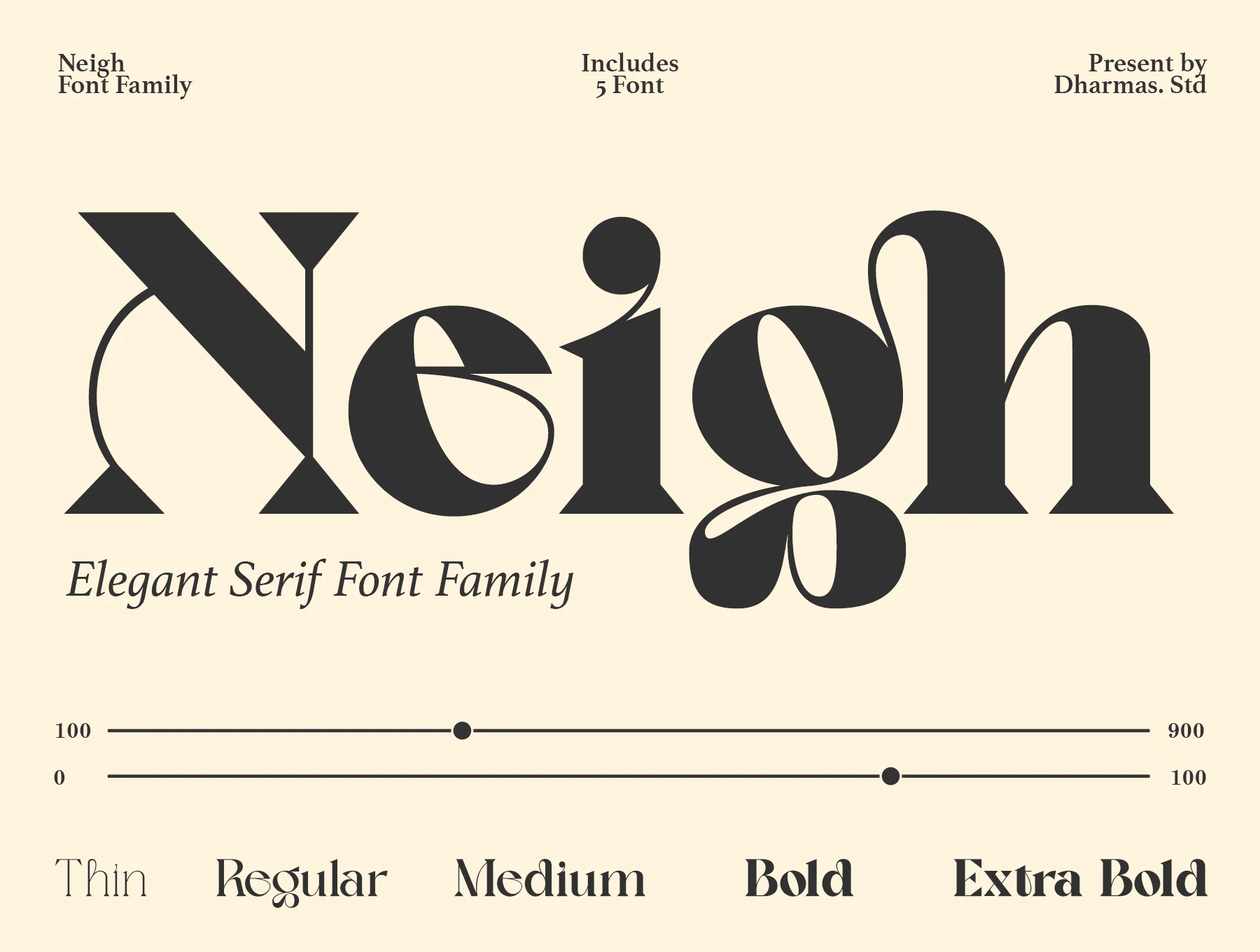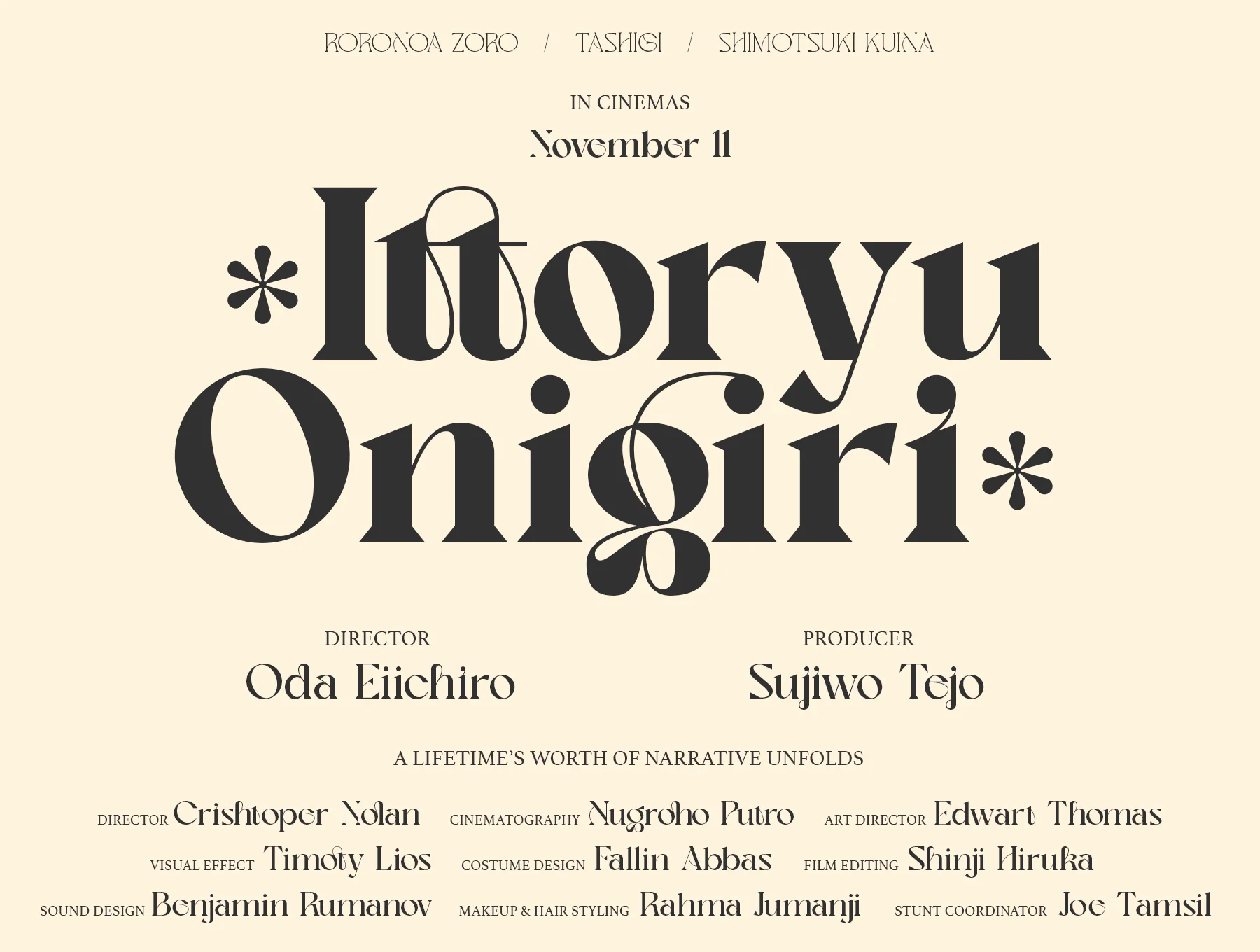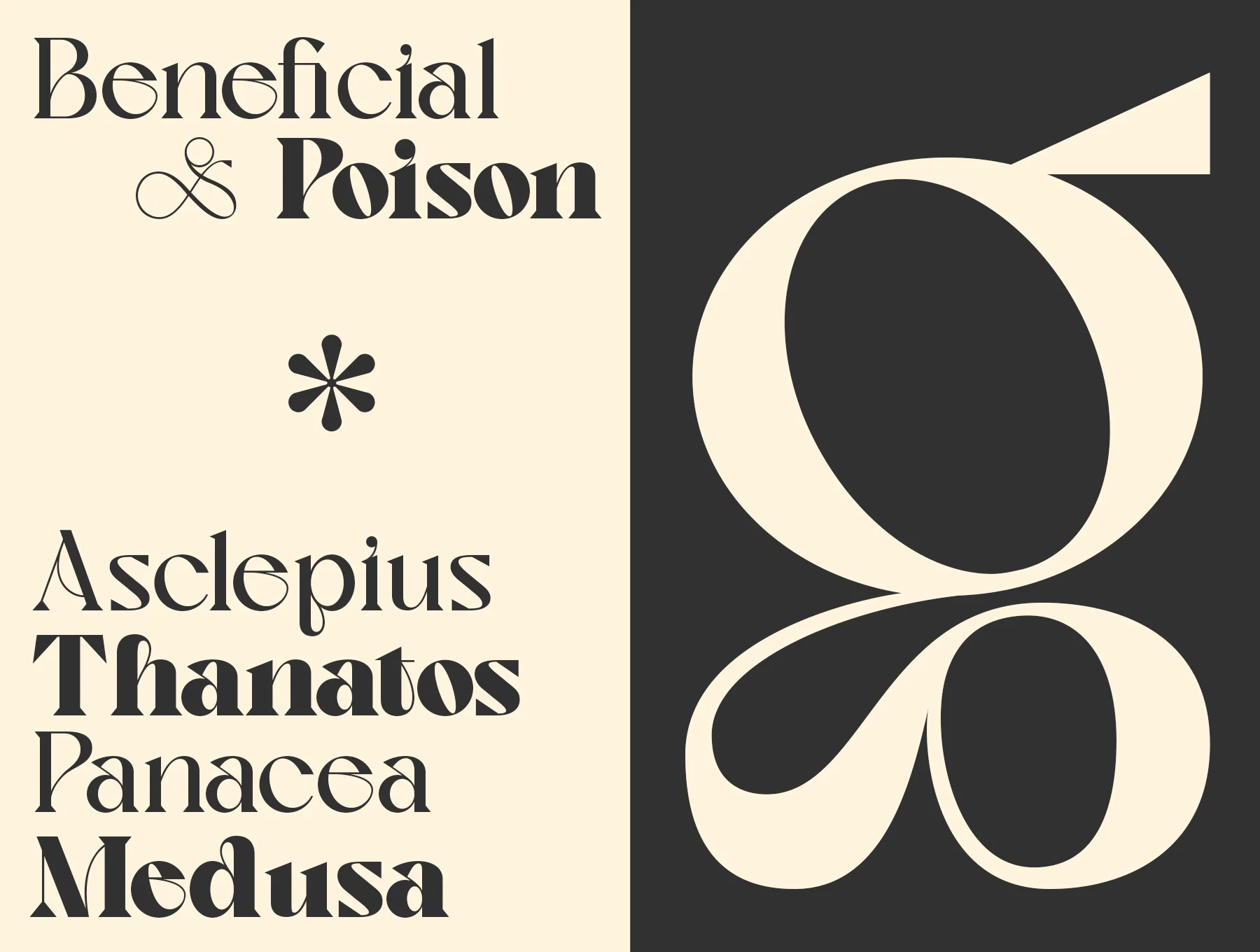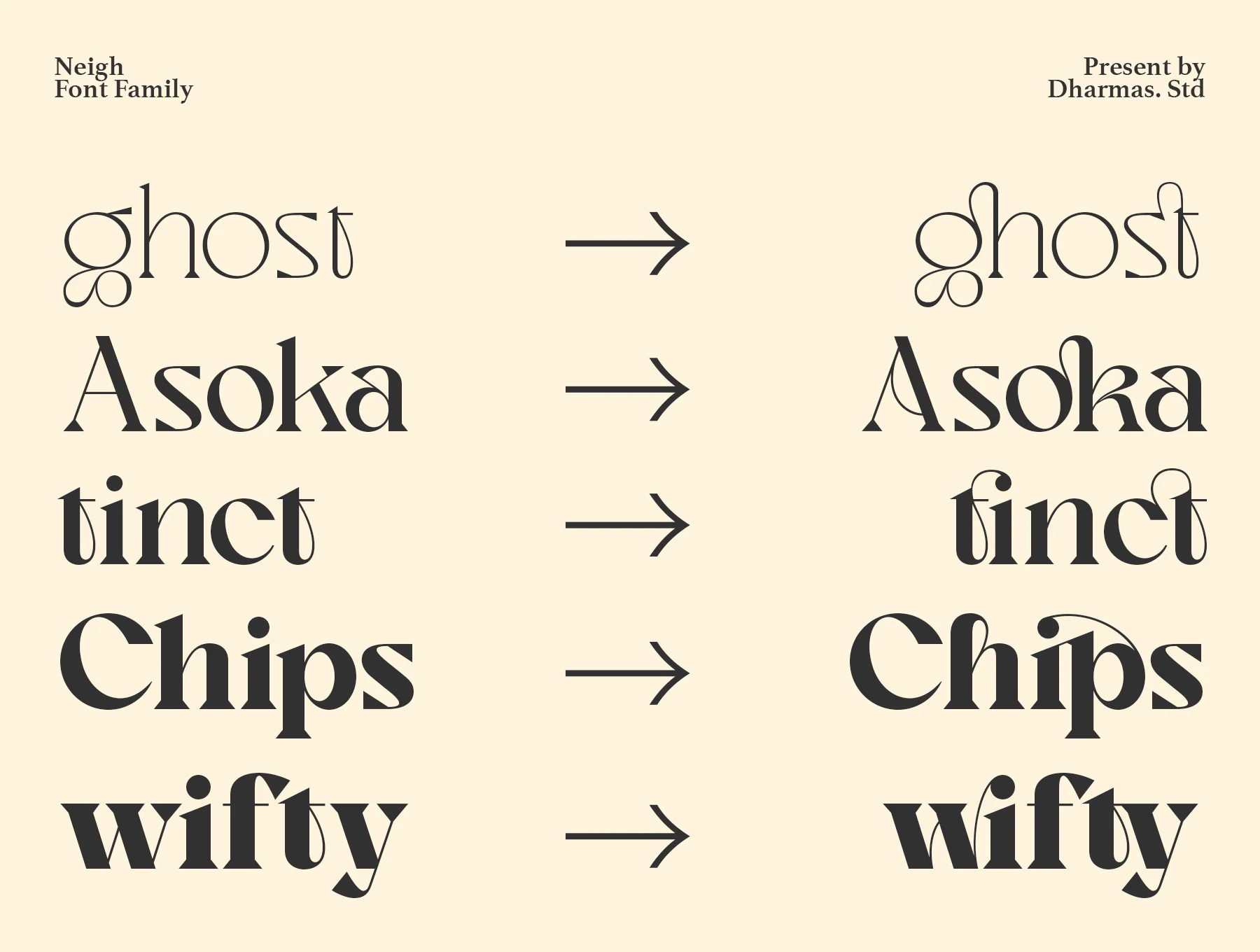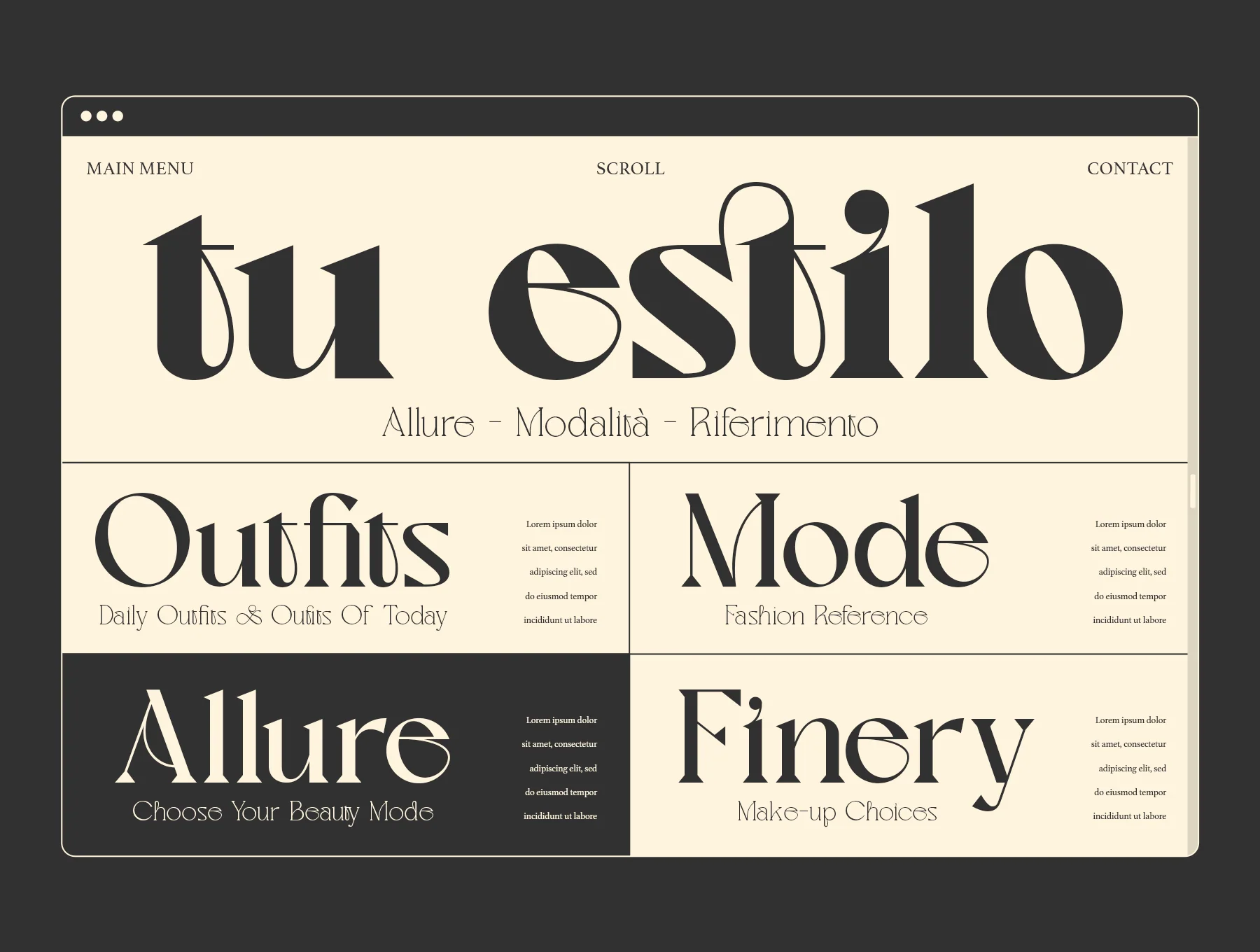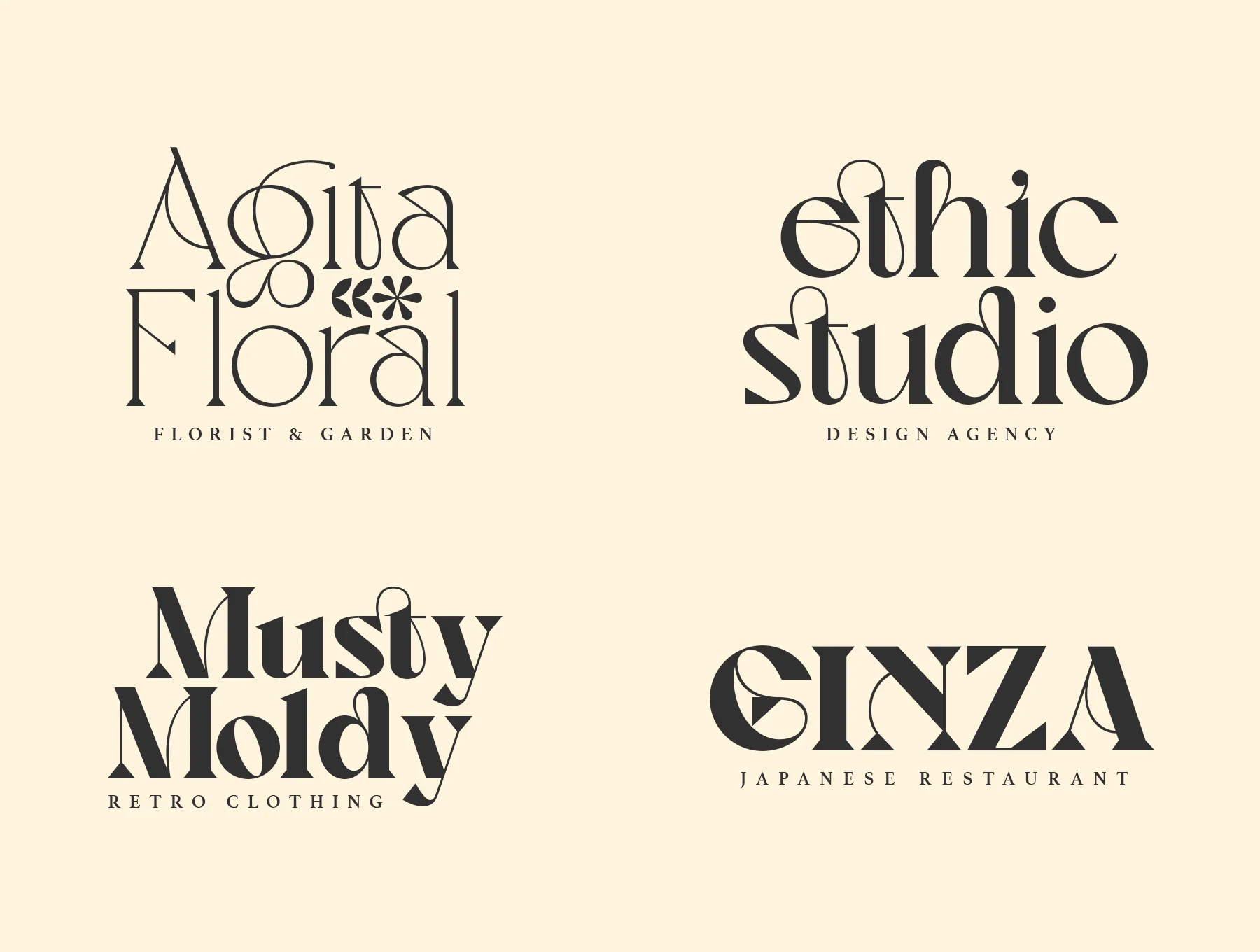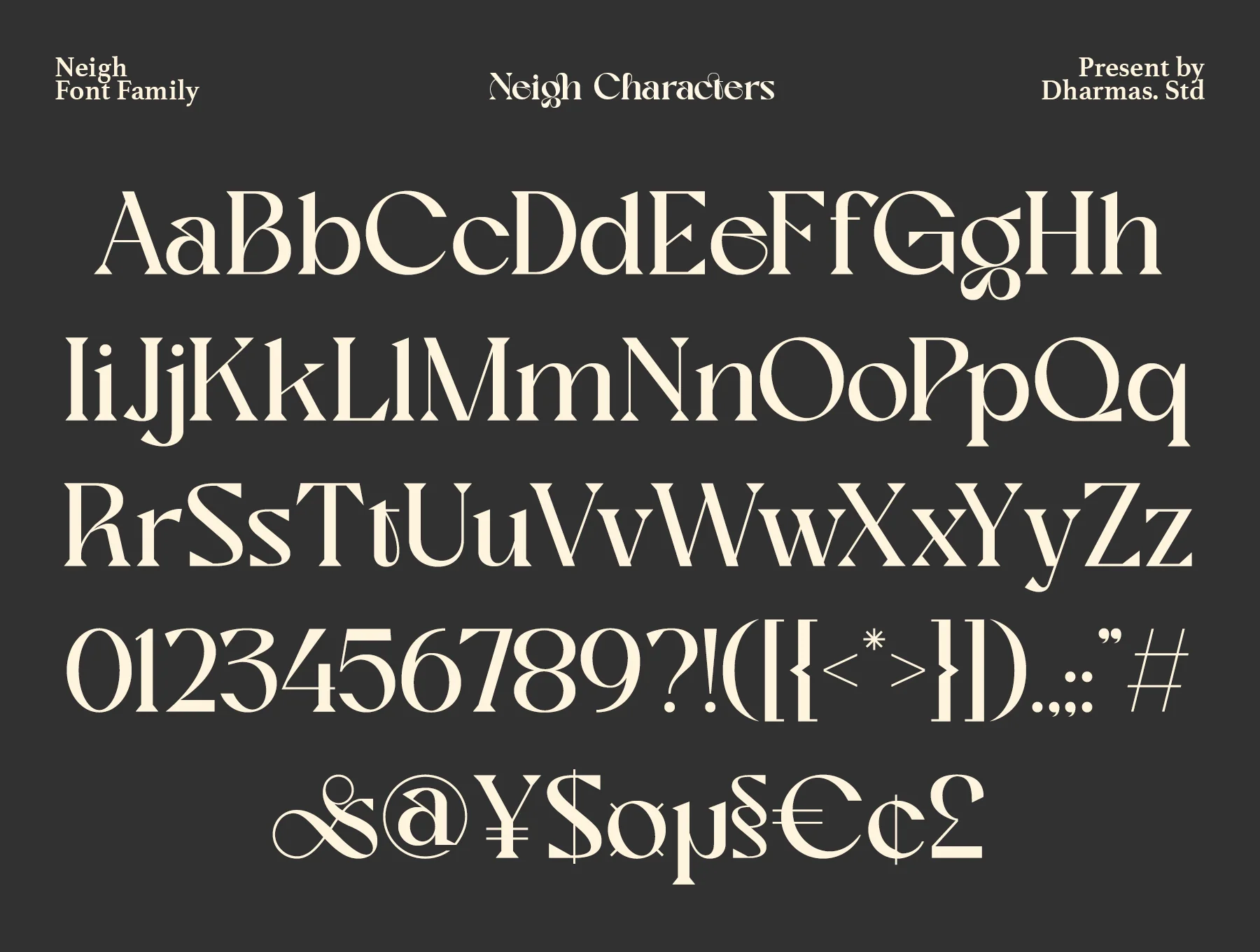
Neigh - Modern Vintage Family Font
Neigh: a fresh, contemporary family font with distinctive personality!
Includes Thin, Regular, Medium, Bold, and ExtraBold styles
Distinct ligature options and alternate glyphs
Neigh is a stylish vintage-modern serif with elegant ligatures, distinctive alternates, PUA glyphs and broad language coverage. Includes Thin, Regular, Medium, Bold and ExtraBold in TTF, OTF, WOFF and WOFF2, plus usage guide. Great for posters, headlines, social posts, magazines, apparel and large prints; works in Adobe apps, Word, Canva and Cricut.